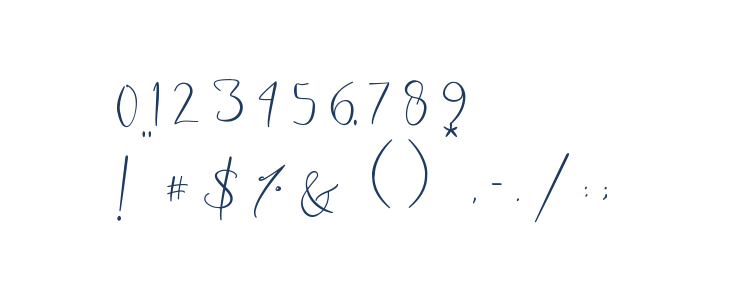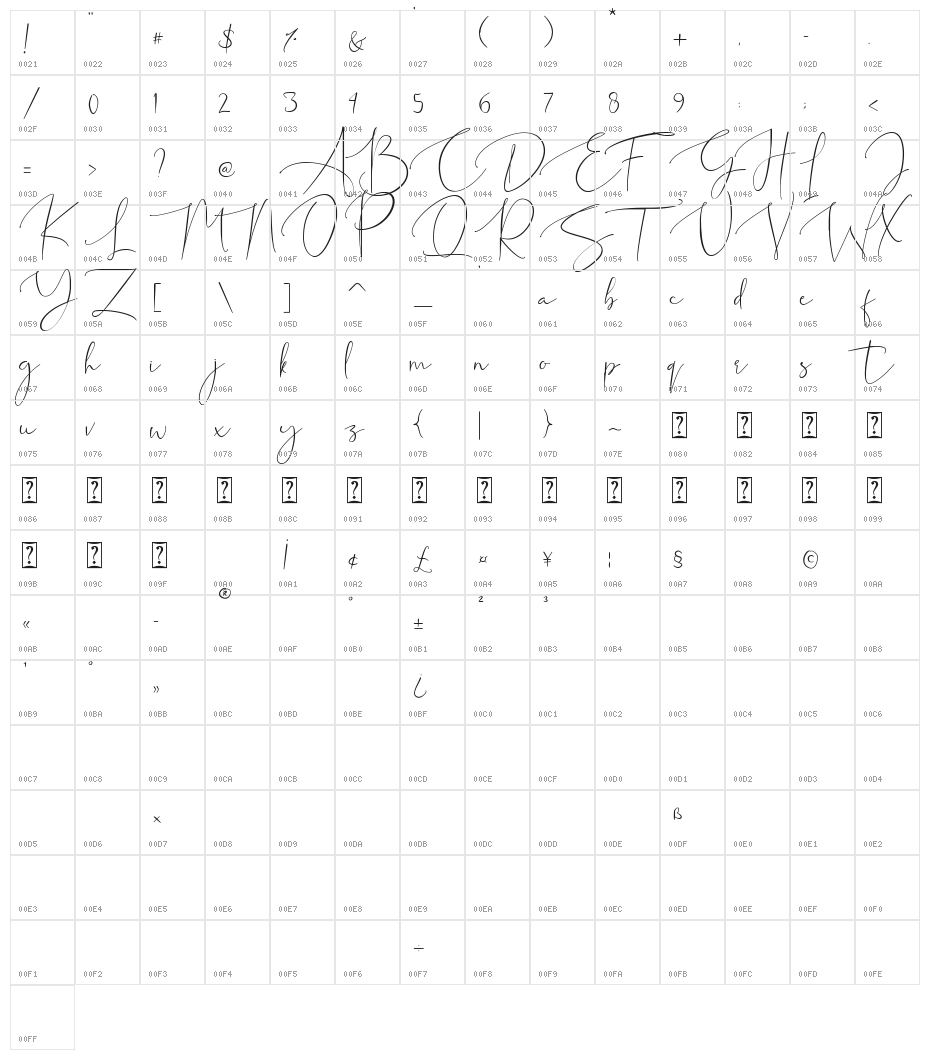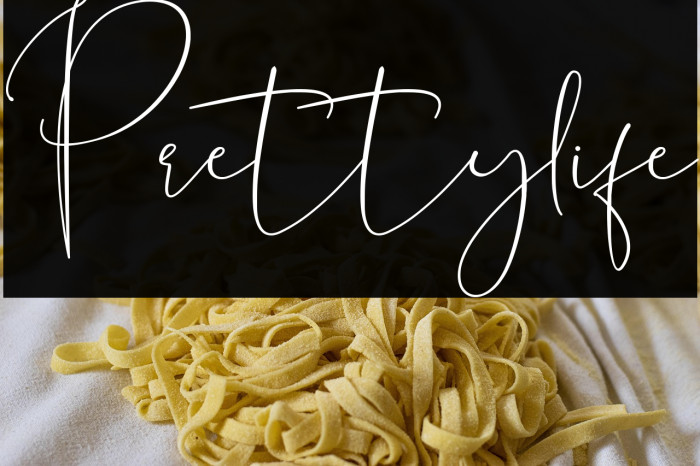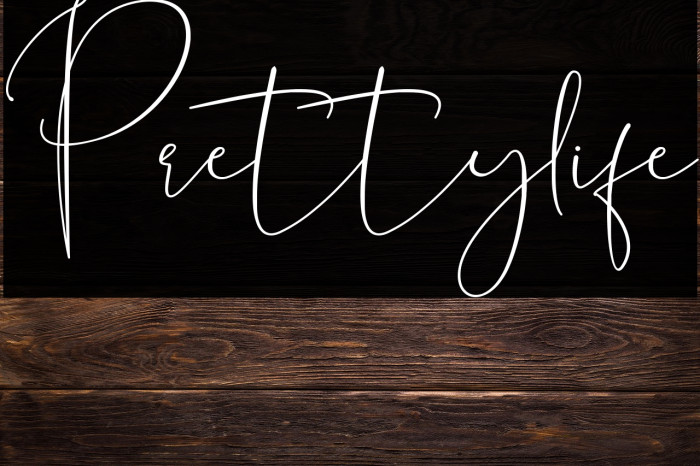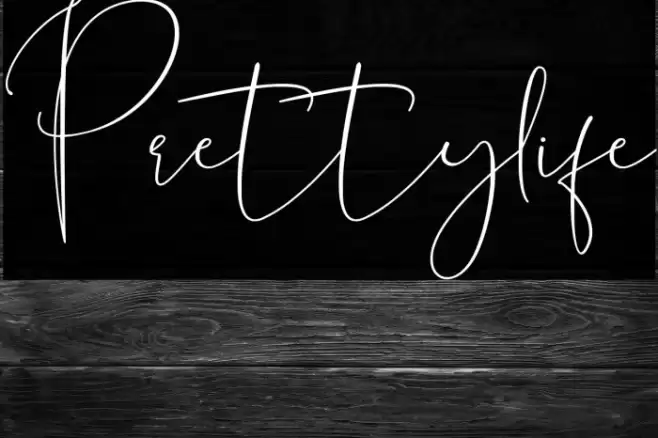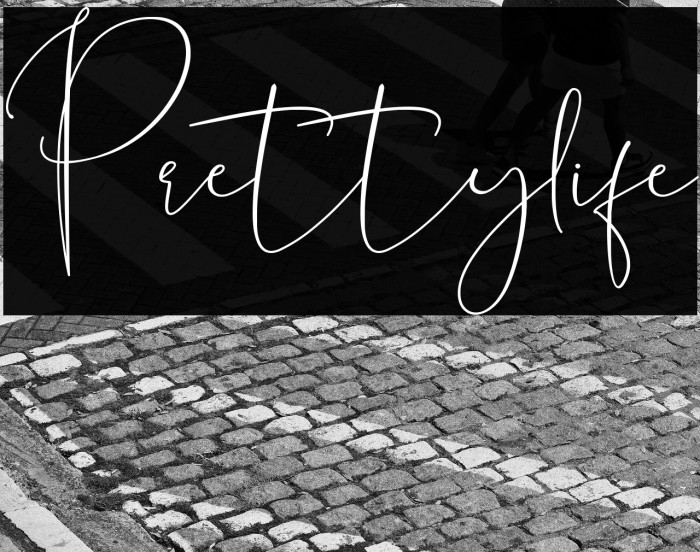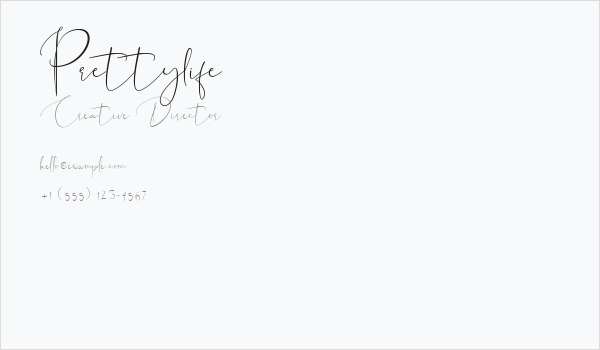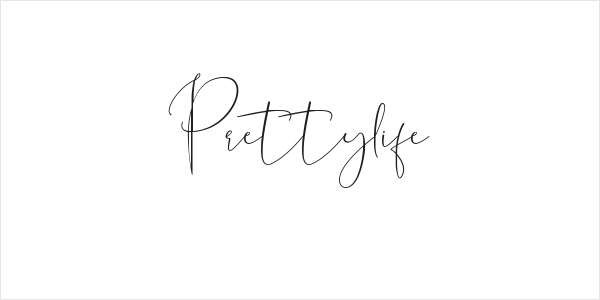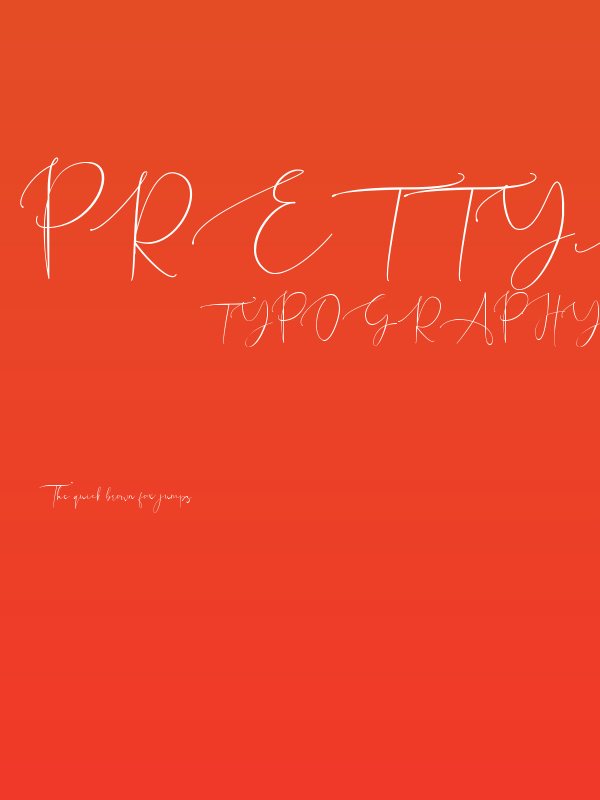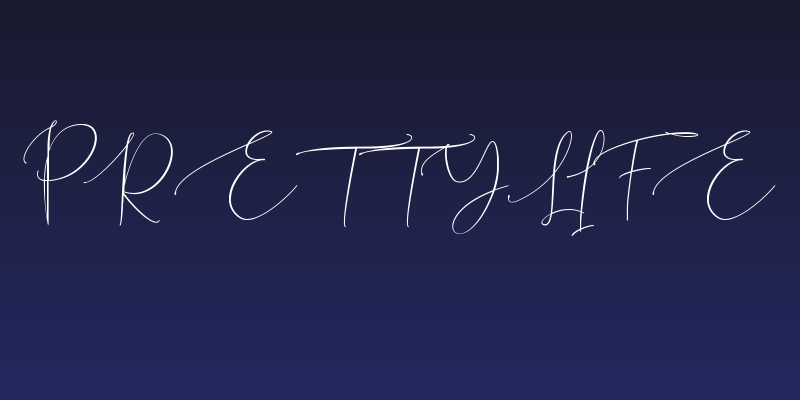
Prettylife Font
Prettylife Description
This elegant and flowing script font features a delicate and sophisticated style, characterized by its smooth, continuous strokes and graceful curves. The uppercase letters are slightly more structured, while the lowercase letters exhibit a more fluid and connected appearance, enhancing the handwritten feel. The numerals and special characters maintain the same elegant style, ensuring consistency across all elements. This font's airy and light design makes it suitable for projects that require a touch of elegance and personal flair.
| Proposed Projects | Ideal for wedding invitations, personal branding, greeting cards, and elegant packaging designs. |